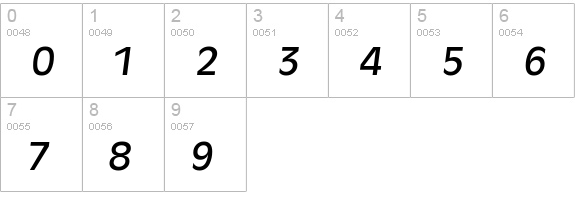
RavennaSerial-Medium-Italic Font Details
RavennaSerial-Medium-Italic is a balanced, medium-weight, italic variant in the RavennaSerial typeface family \xE2\x80\x94 well suited to sub-headlines, navigation, and balanced editorial work.
RavennaSerial-Medium-Italic font is a sophisticated and elegant typeface that exudes a sense of modernity and style. Its slanted italic design adds a touch of flair and sophistication to any project. The medium weight strikes the perfect balance between boldness and subtlety, making it versatile for a wide range of design applications. This font is not only visually appealing but also highly legible, making it suitable for both headings and body text. Whether used for print or digital media, RavennaSerial-Medium-Italic font is sure to make a statement and elevate the overall design aesthetic. Best of all, this exquisite font is available for free download at FontsMarket.com. Now you can enhance your design projects with this premium typeface without breaking the bank. Don't miss out on the opportunity to add RavennaSerial-Medium-Italic font to your font library today!